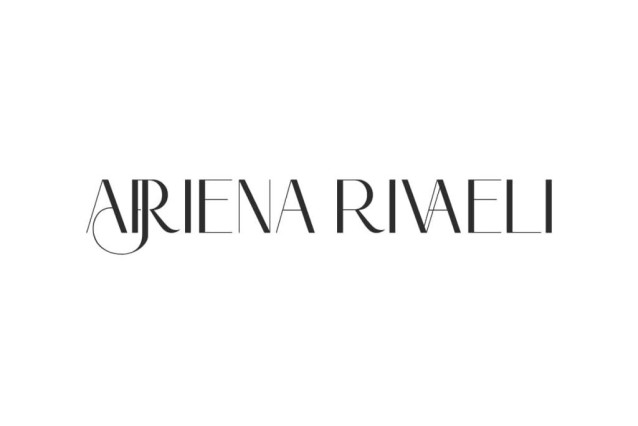
Ajriena Rivaeli Font is a sophisticated and stylish san serif look, visually appealing to the eye and complementing any design. Perfect for apps, banners, brochure, blogs, covers, flyers, greeting cards, headers, logos, magazines, mockup, posters, screen printing, social media post, stamp mark, stationery, templates, titles, website, and more.
Ajriena Rivaeli Font includes full set of Uppercase and Lowercase Basic Characters, Numbers, Punctuation, Symbols and Ligature. Capable of delivering timeless elegance with a carefully crafted san serif typeface that blends classic charm with contemporary style. Perfect advertising, art, clothing brand, fashion, florist, graphic design, high-end housing, home furniture, photography, pottery craft, etc.